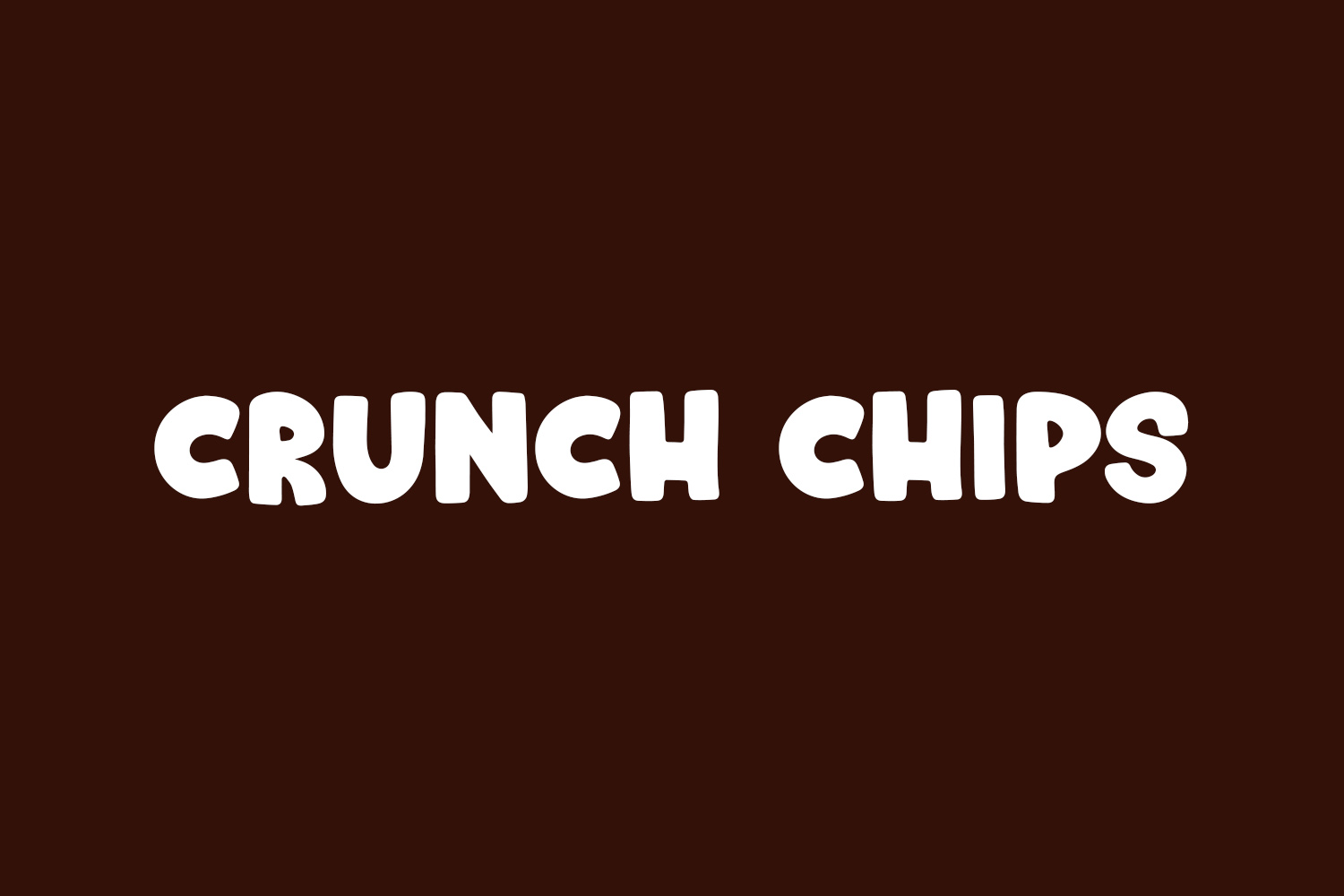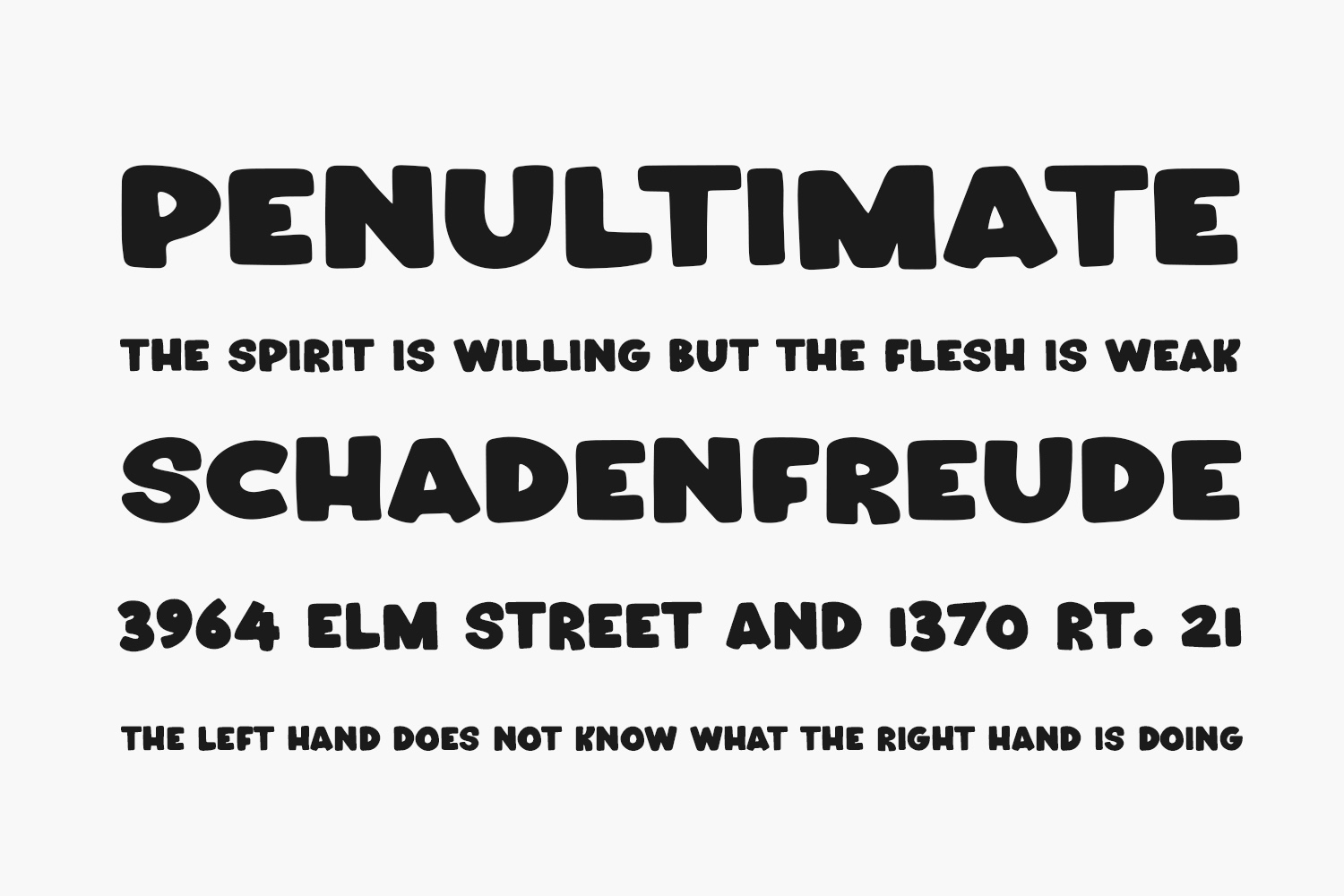
Meet Crunch Chips Free Font Family, a playful, bold, and lively display font that adds a touch of fun to your designs. With its chubby characters and cheerful vibe, this typeface is a must-have in your fonts library! Unleash your creativity and infuse a playful spirit into your design ideas with Crunch Chips. Download the font for free if you need it for personal use or purchase the full version for commercial use.
Designed by The Docallisme